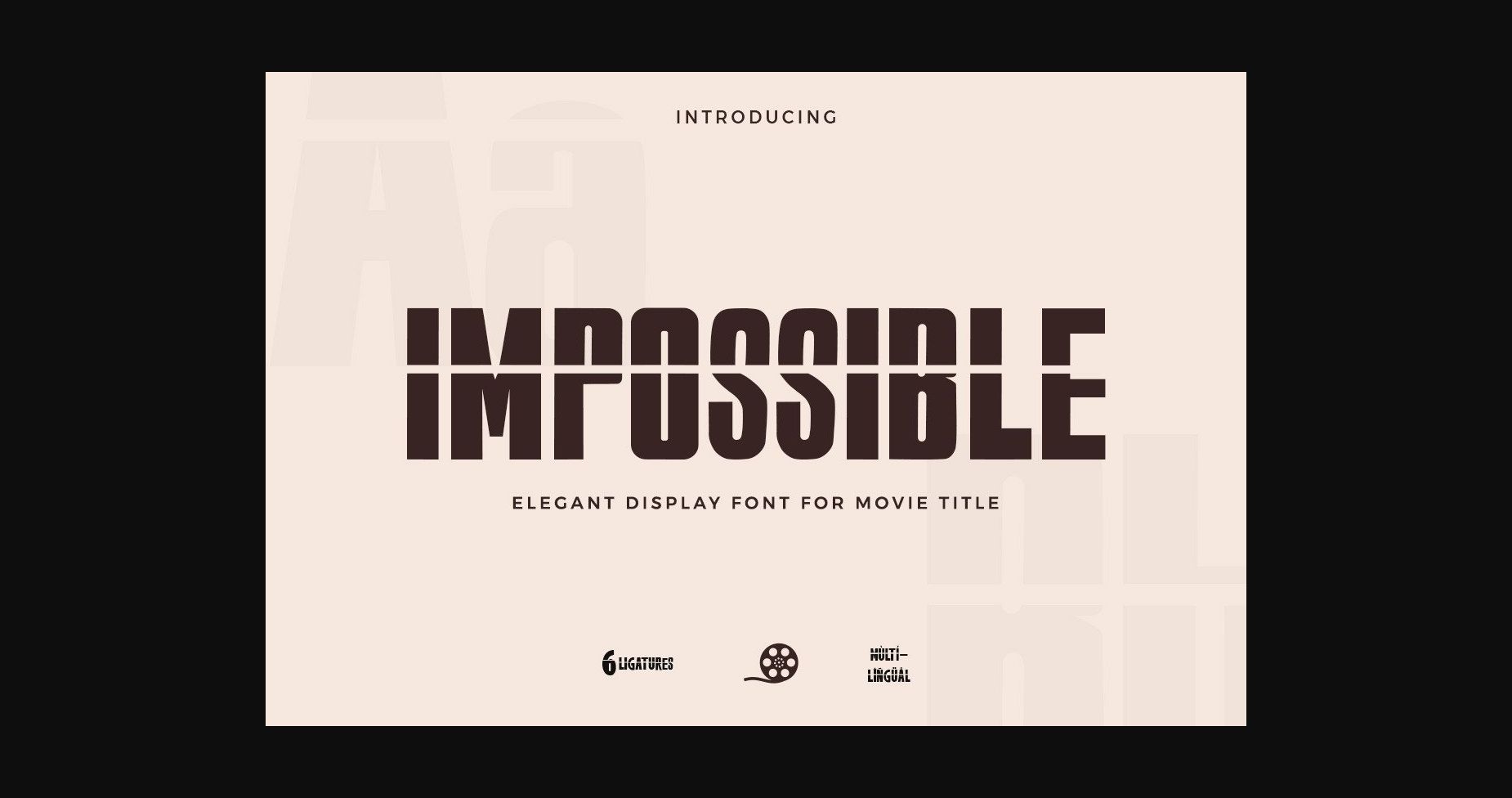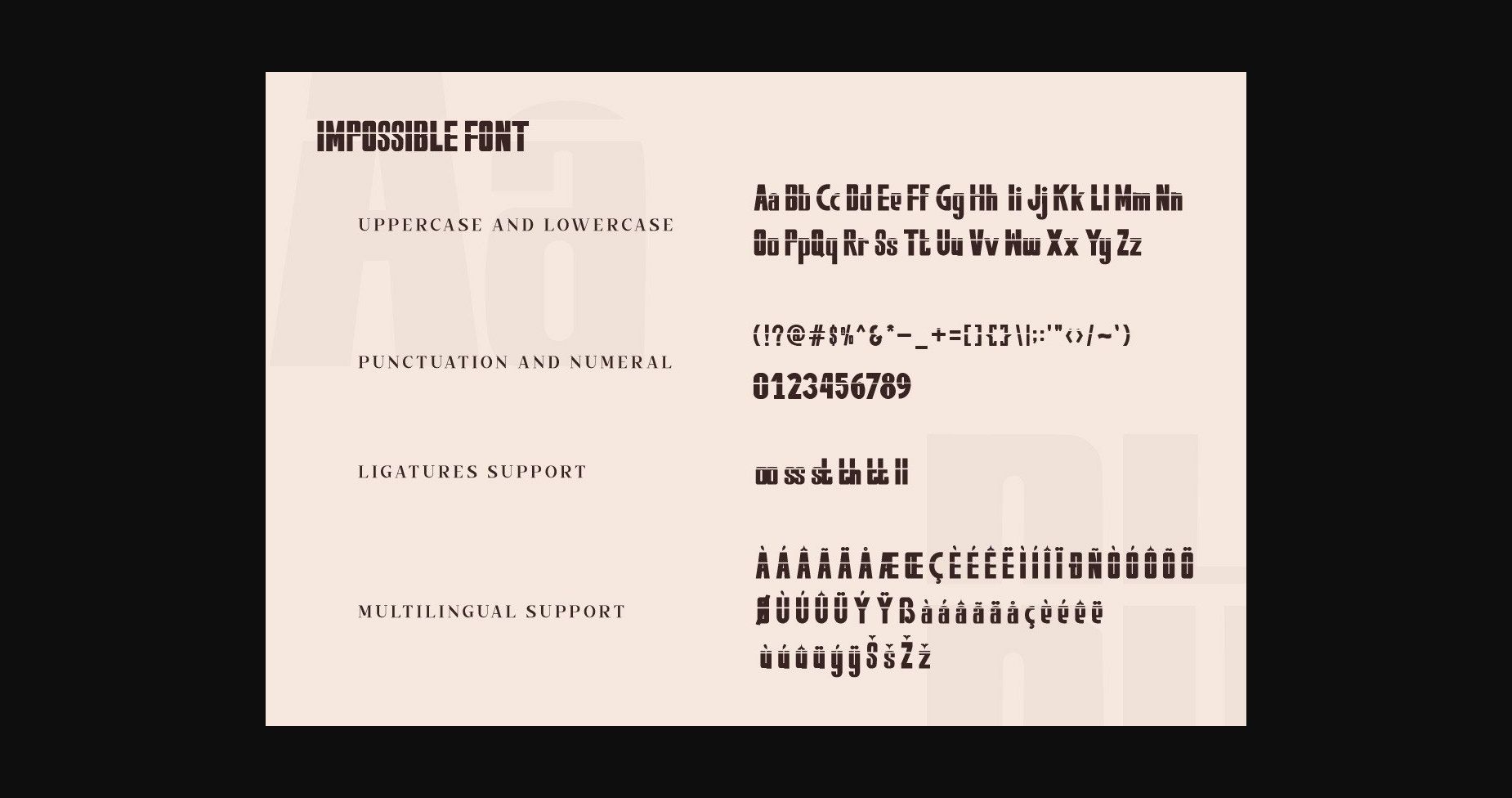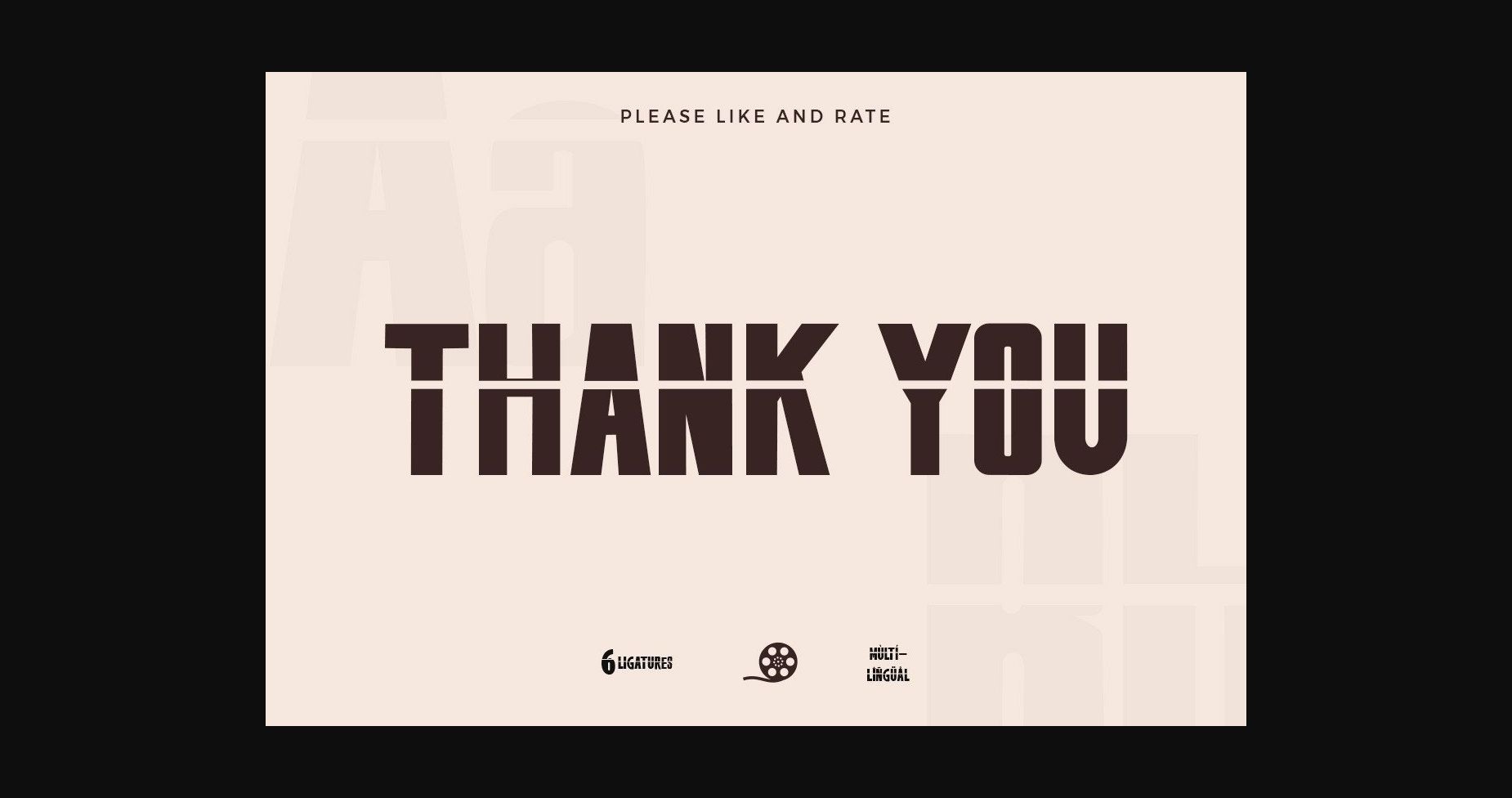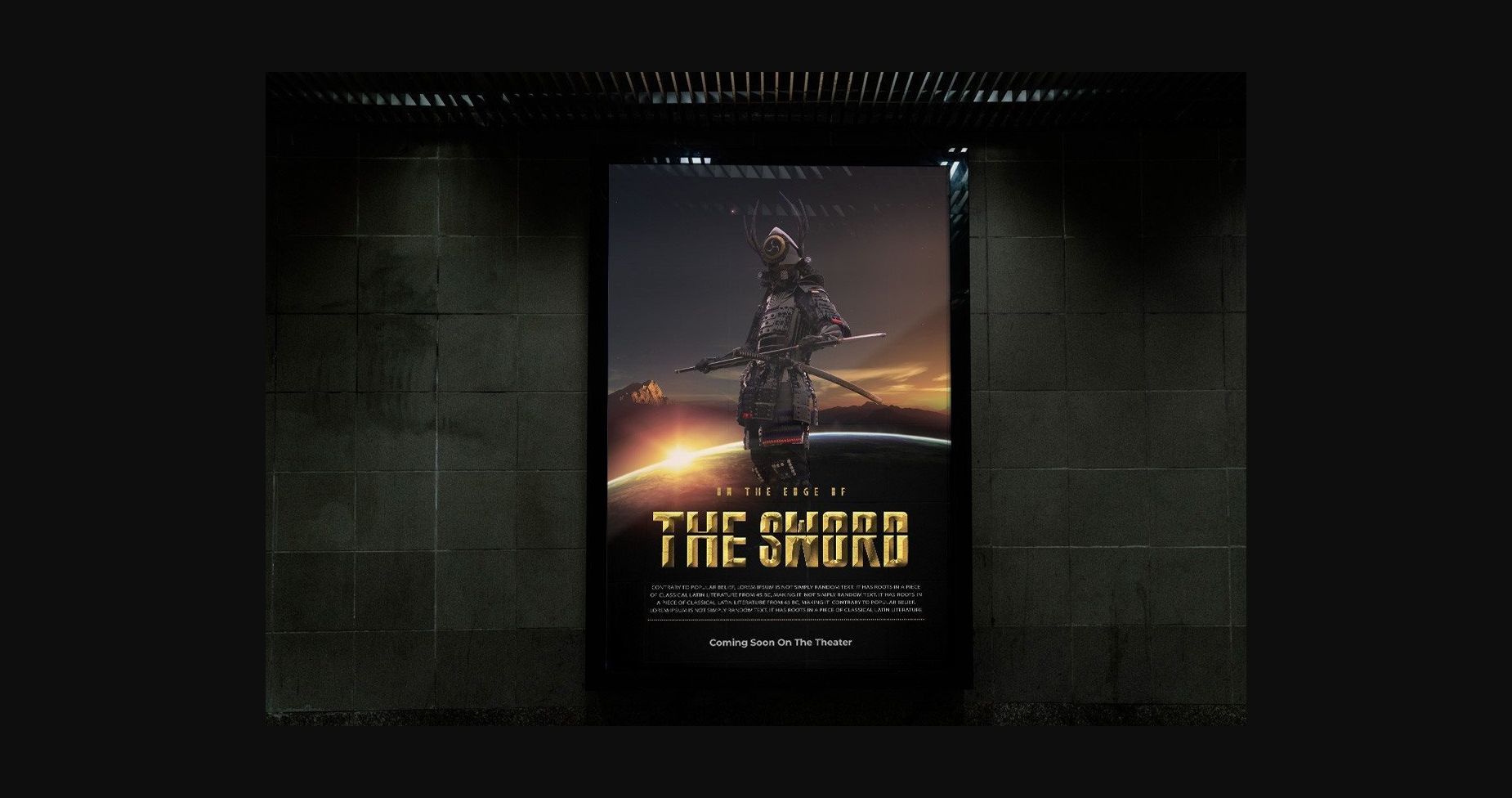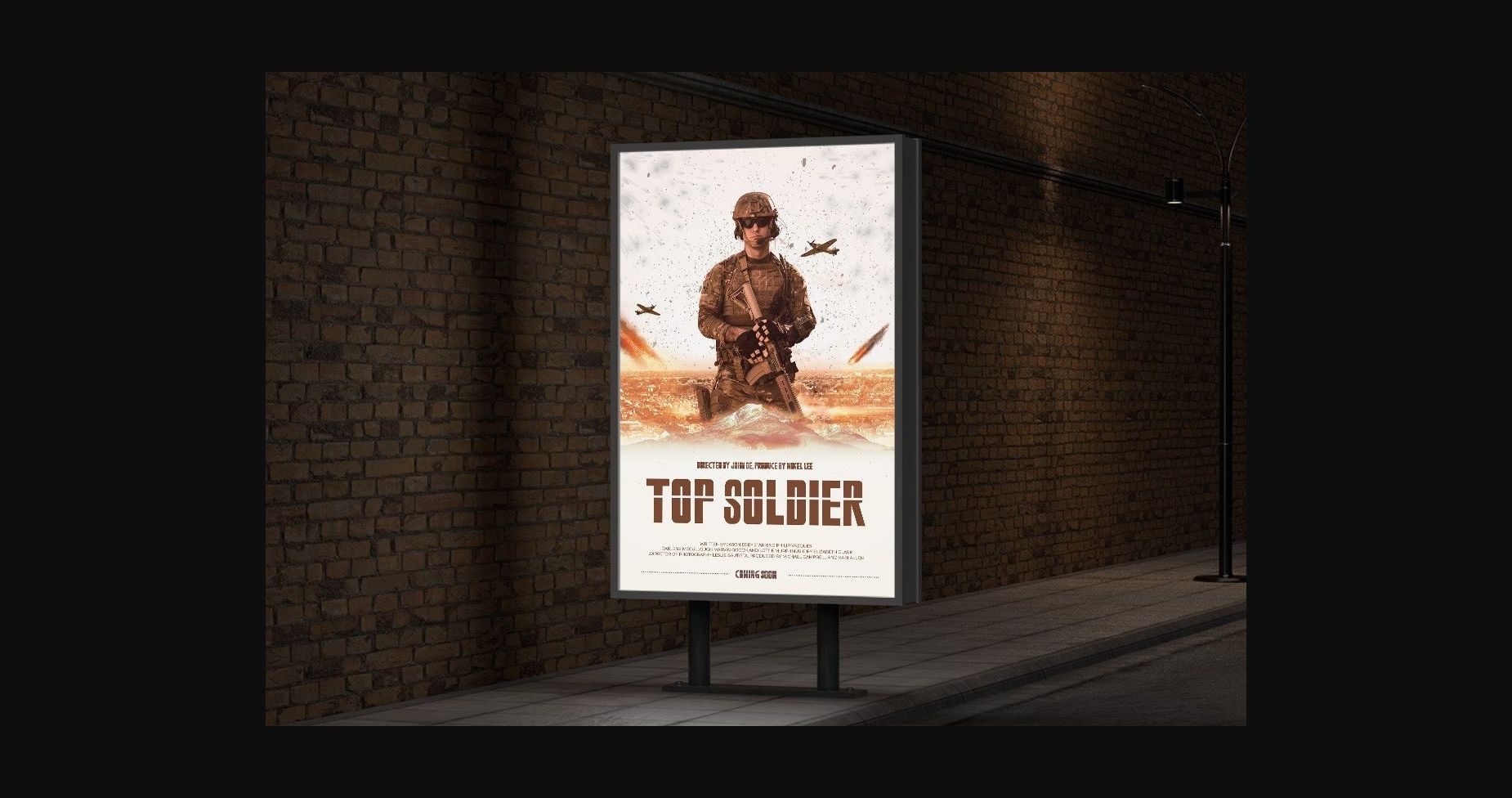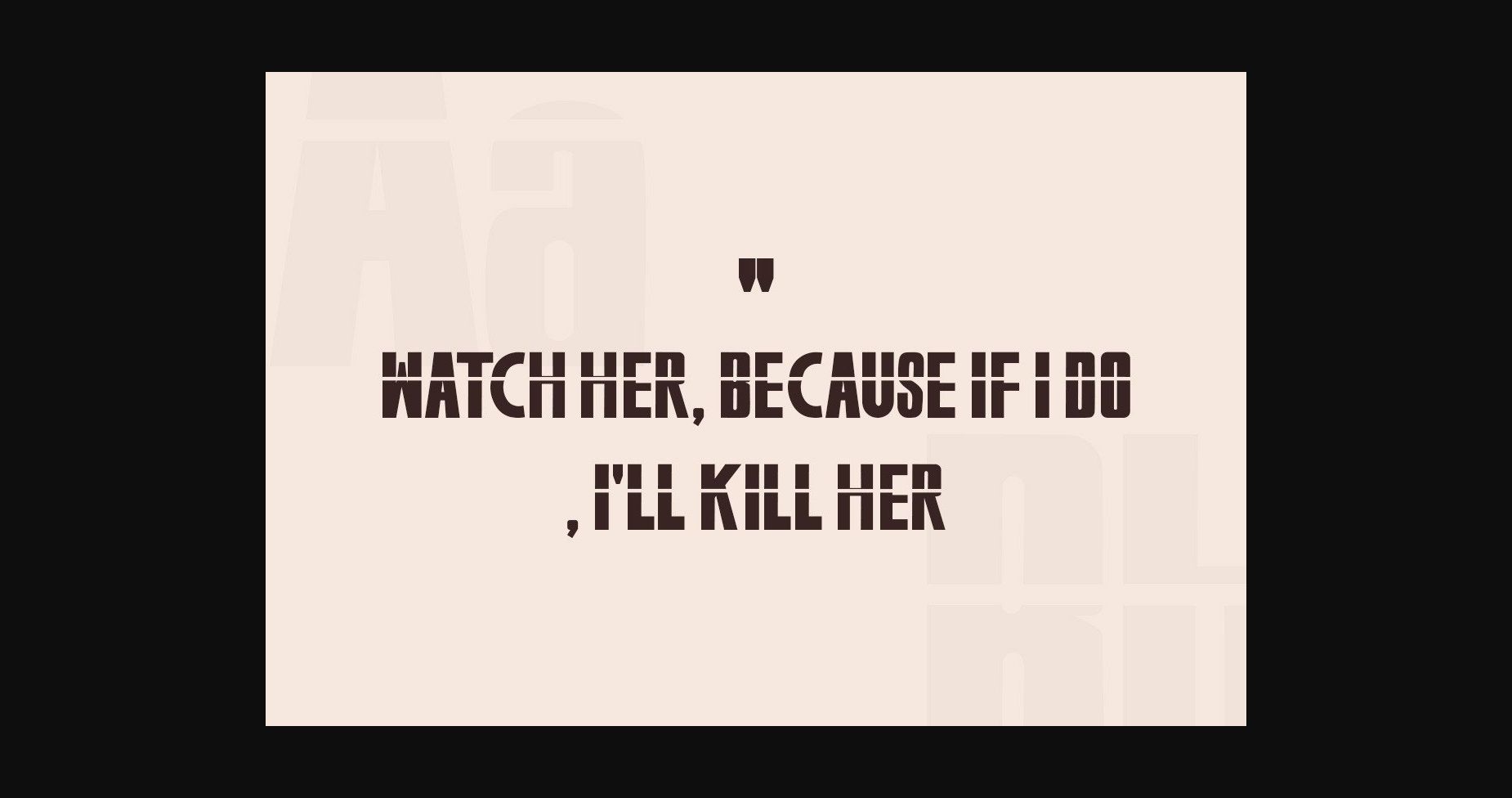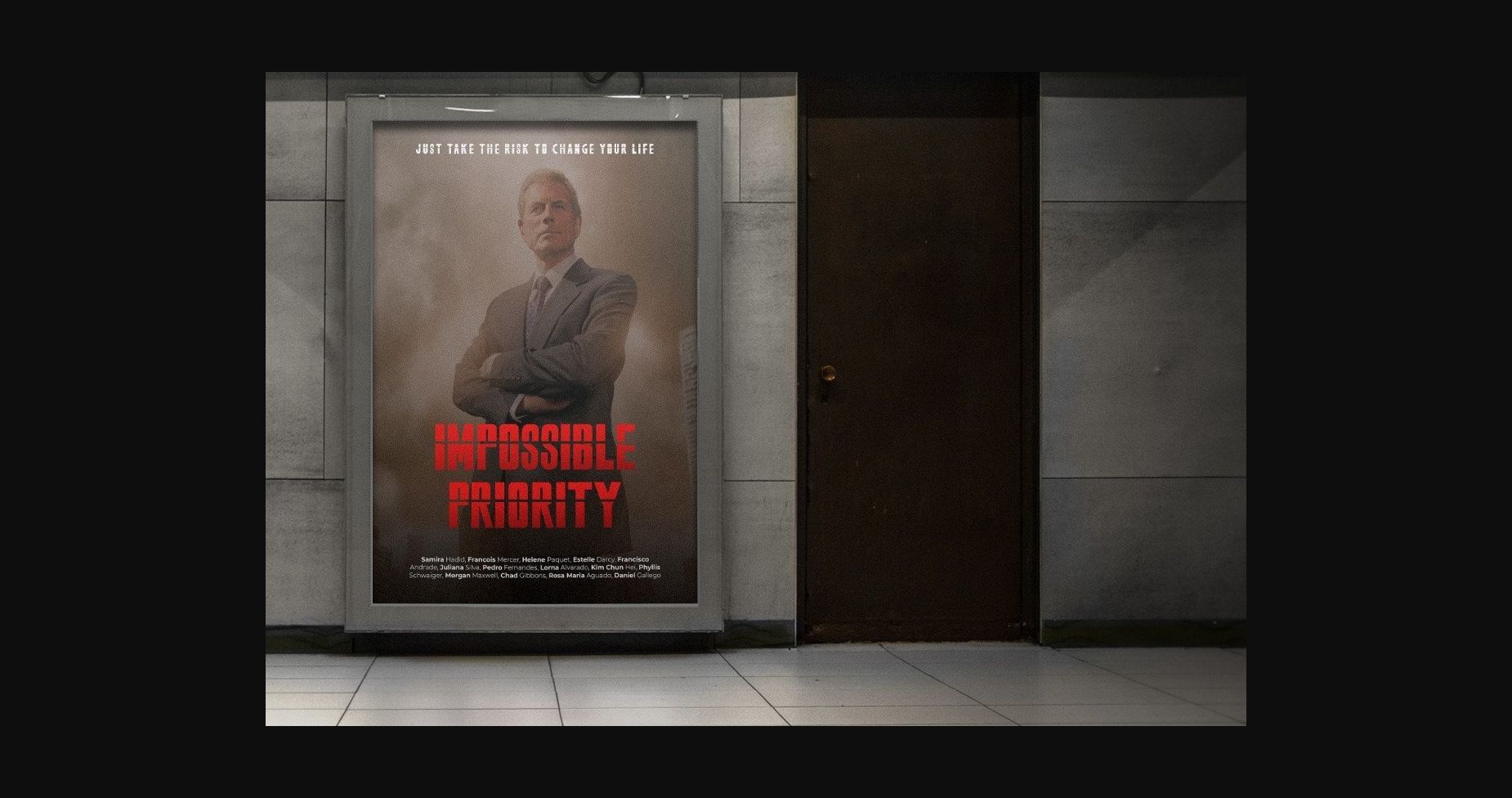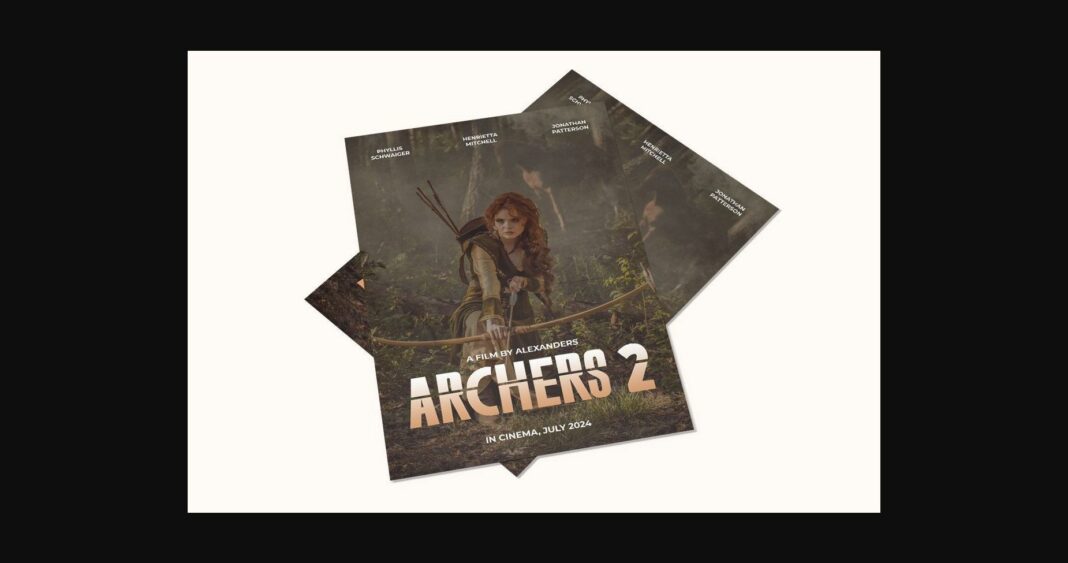
Impossible Font
About Impossible Font
Impossible is a decorative sans serif font that makes a bold statement. This flexible, friendly, and cool typeface is great for movie titles, logos, or headlines.